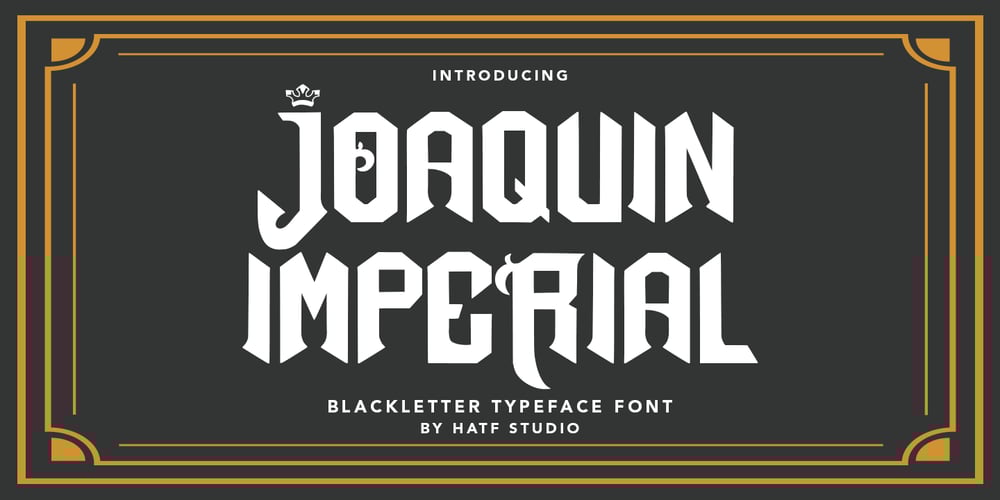
Joaquin Imperial
Joaquin Imperial font
Joaquin Imperial Font Family was designed by Asep Rendi and published by Hatftype. Joaquin Imperial contains 1 styles and family package options. Joaquin Imperial – Blackletter Typeface Font is a display font that is inspired by gothic and horror style because its shape is very unique and is perfect for any project that you will use with this theme.Joaquin Imperial with opentype features such stylistic alternates, stylistic sets & ligatures good for logotype, poster, badge, book cover, tshirt design, packaging and any more.Features :1.Uppercase & Lowercase 2.Multilingual support 3.Number 4.Symbol 5.Punctuation. 6.Extra Dingbat 7.Support in Mac and Windows OS -Support in design application (photoshop, illustrator, and more).There it is. I really hope you enjoy it. Comments & likes are always welcome and accepted. More importantly, don’t hesitate to send a message if you have a problem or question.